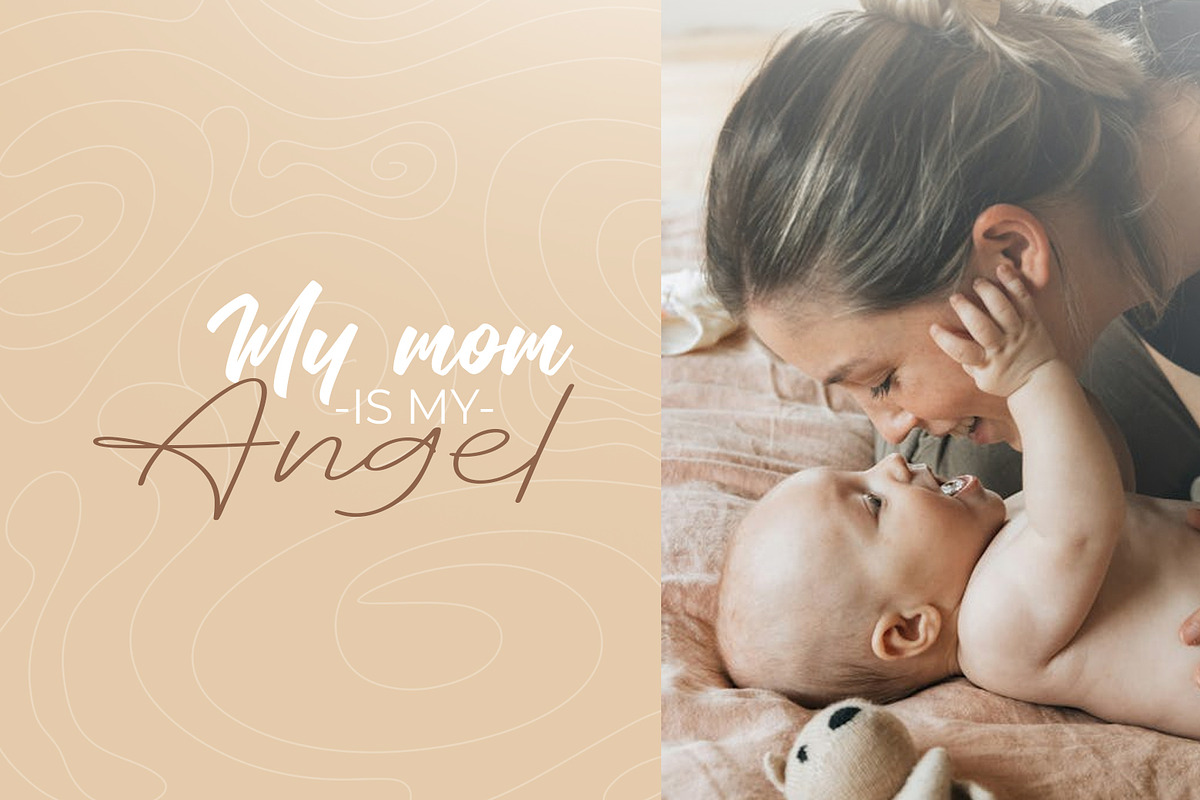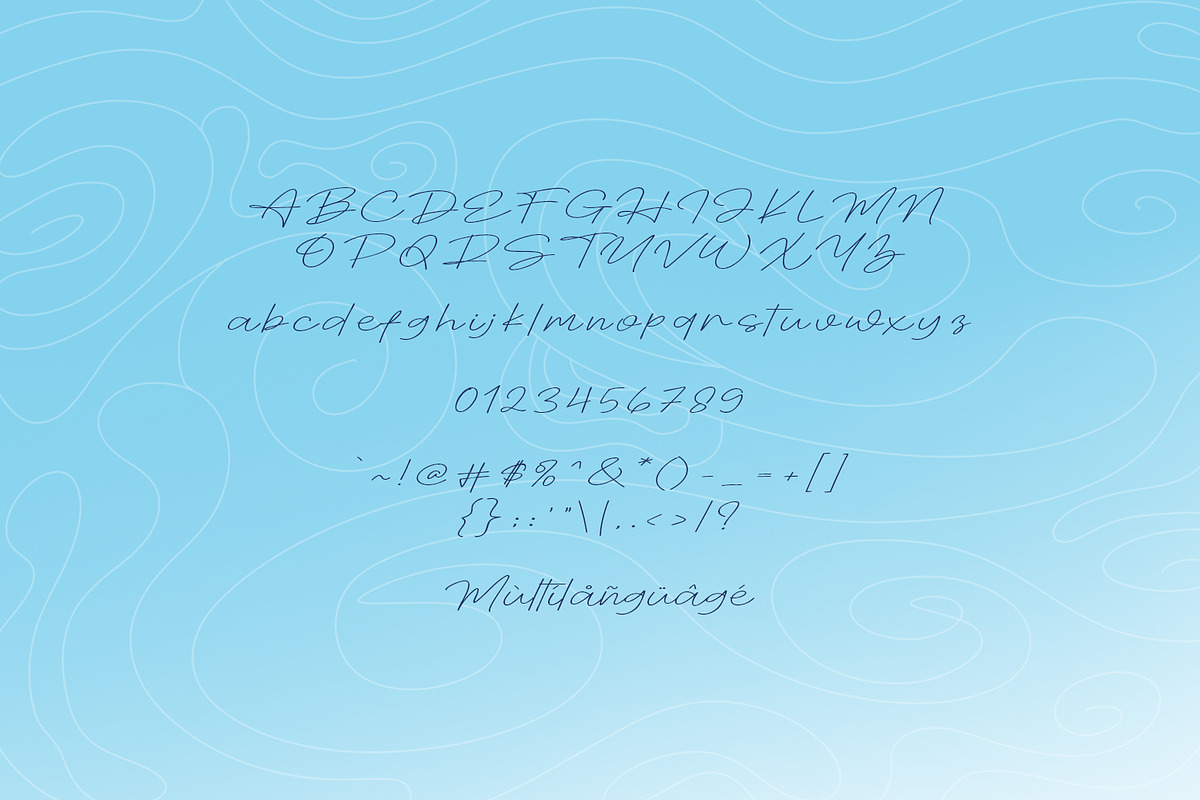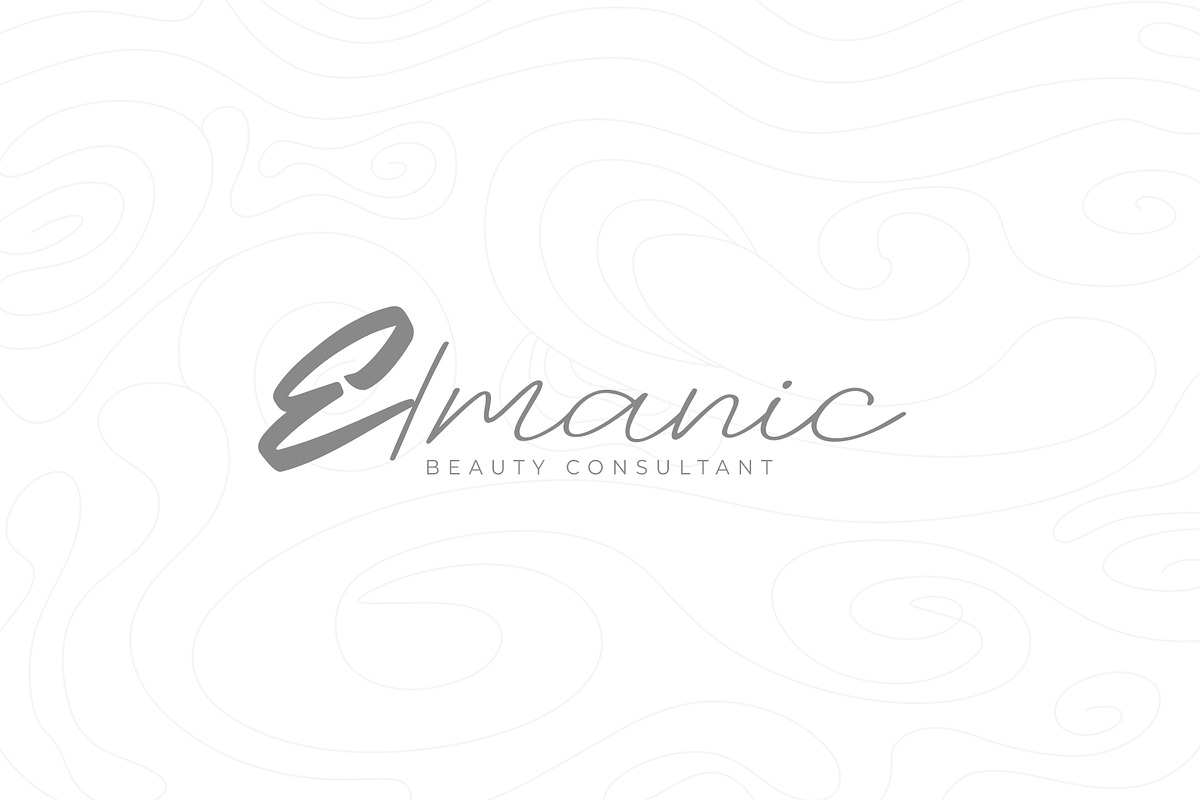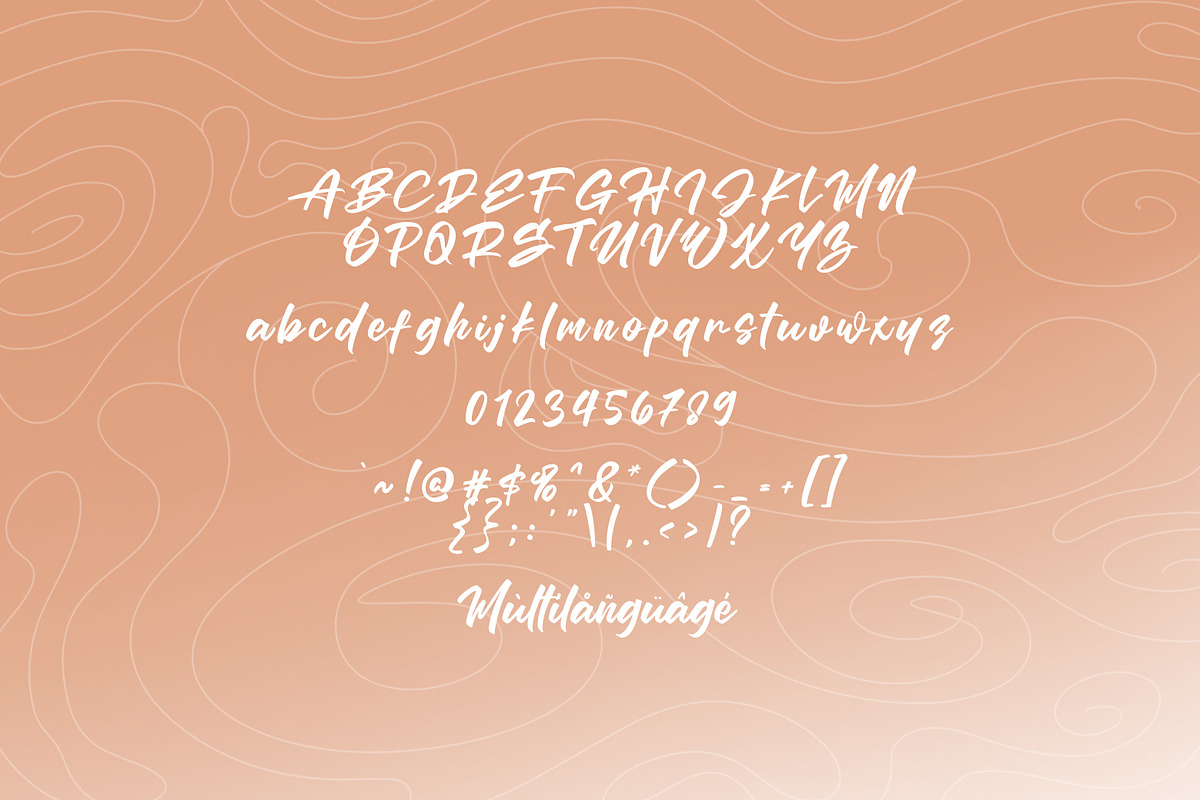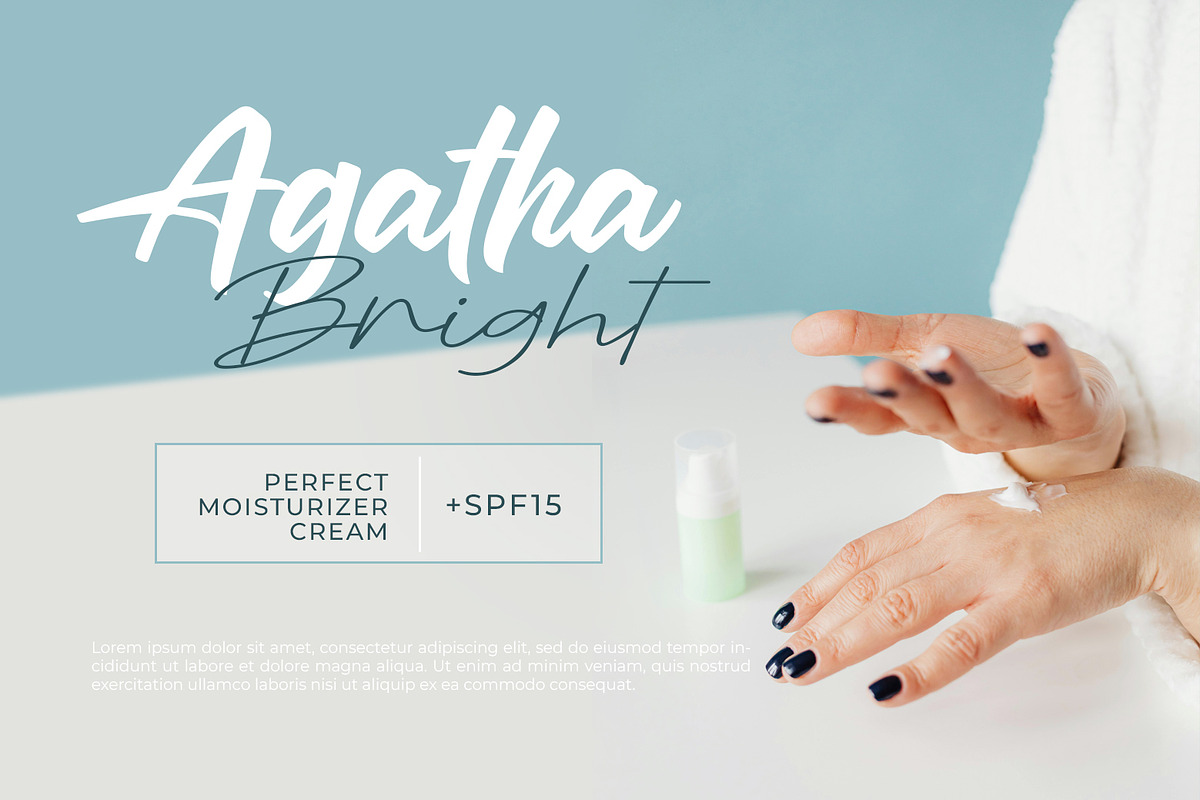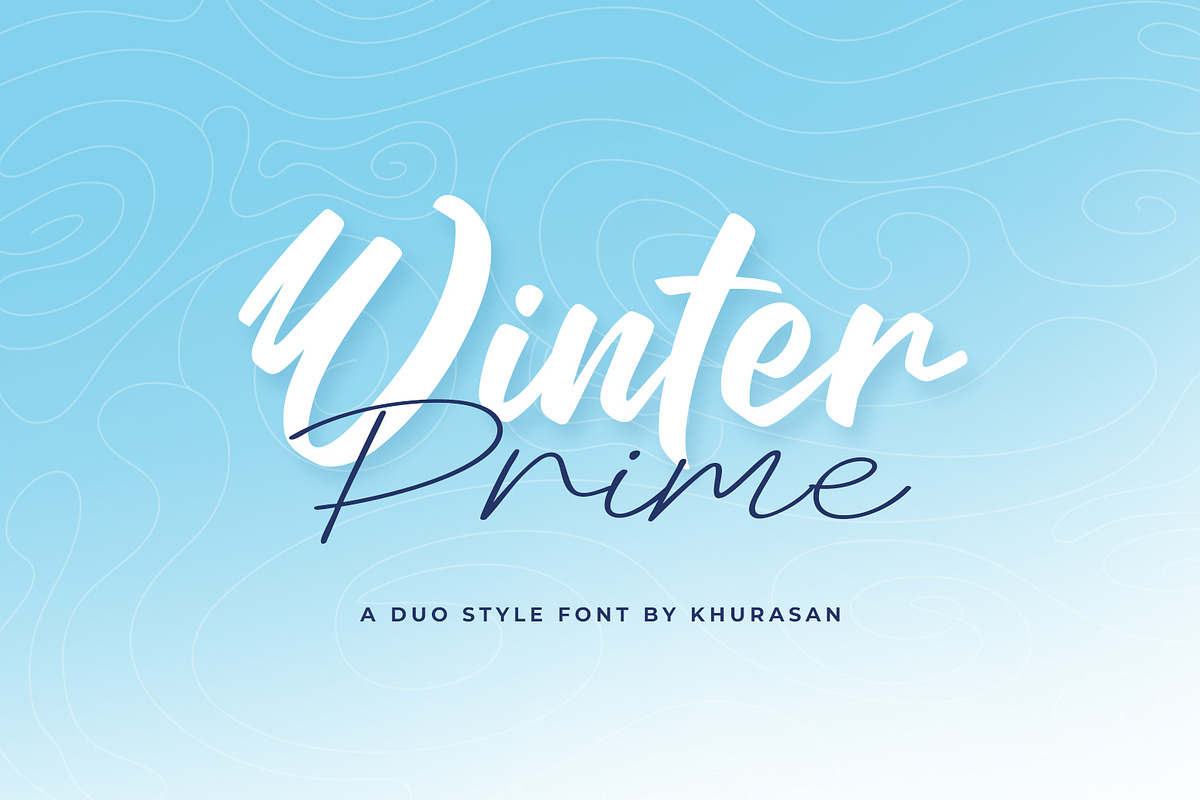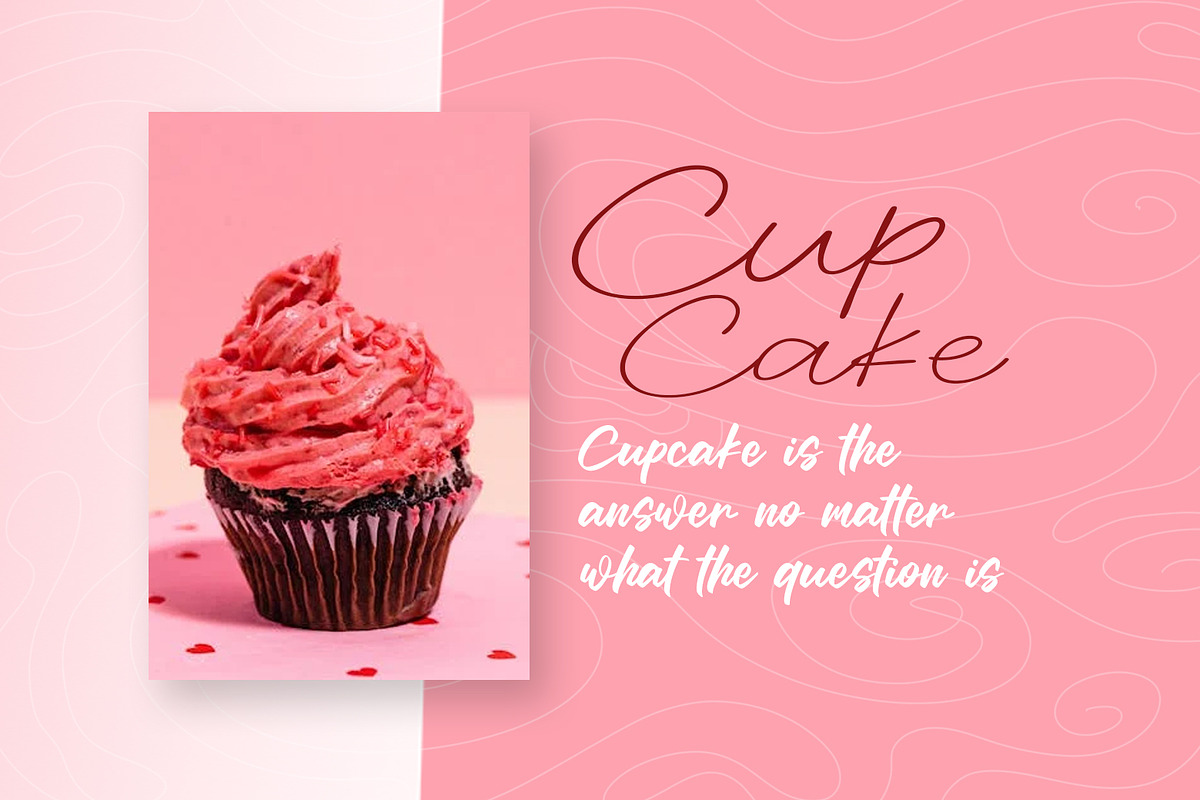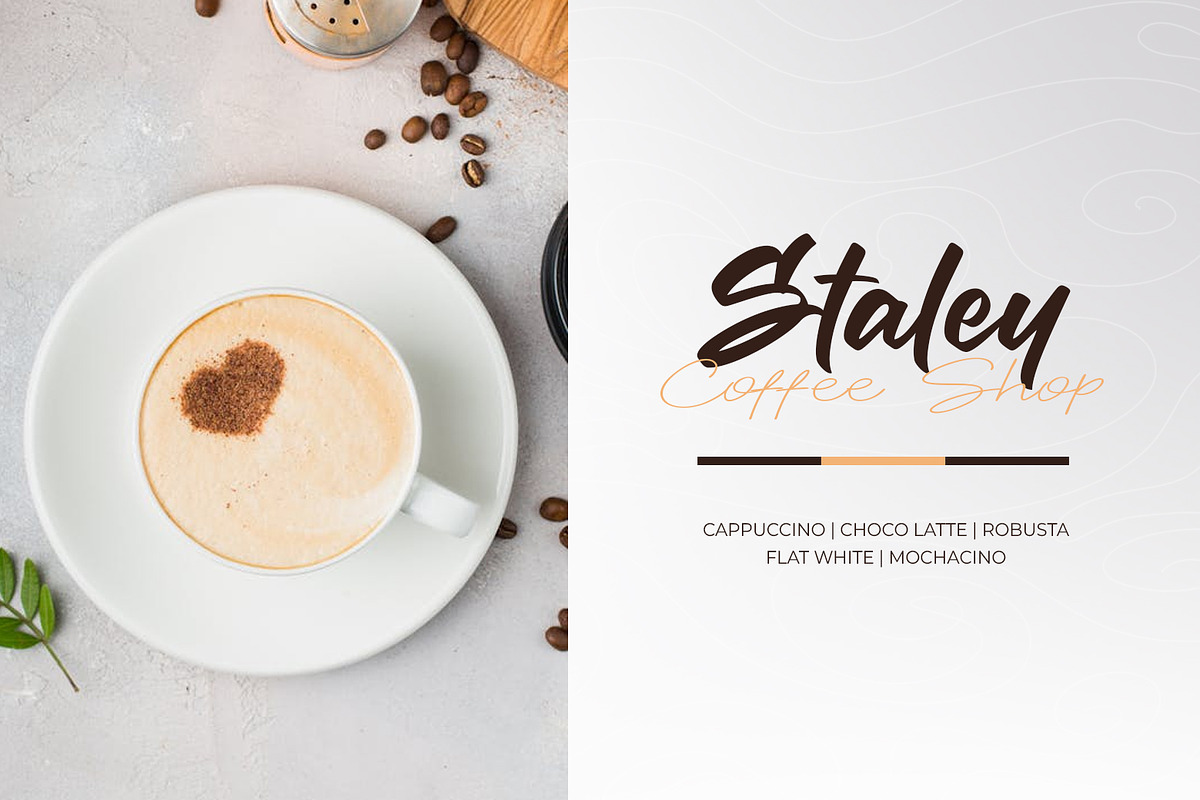
Winter Prime
Winter Prime is a modern duo script font. Winter Prime font suitable for logo, branding, greeting card, poster and any design that you create…!